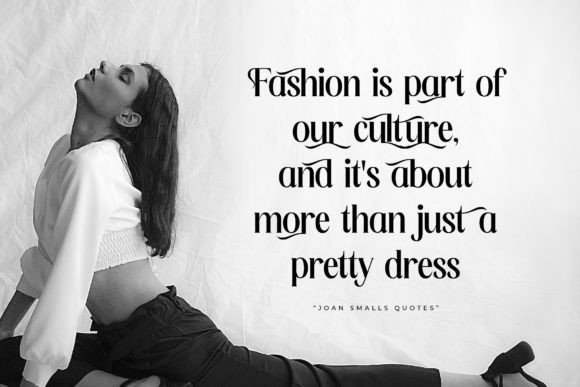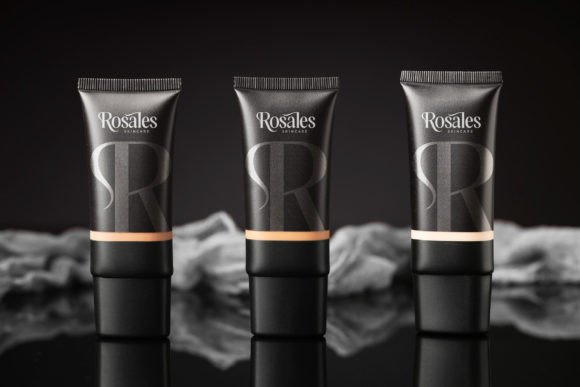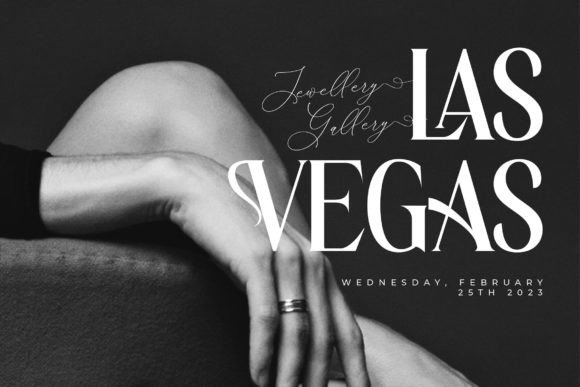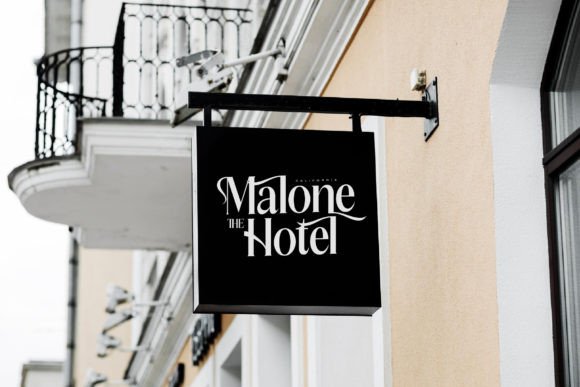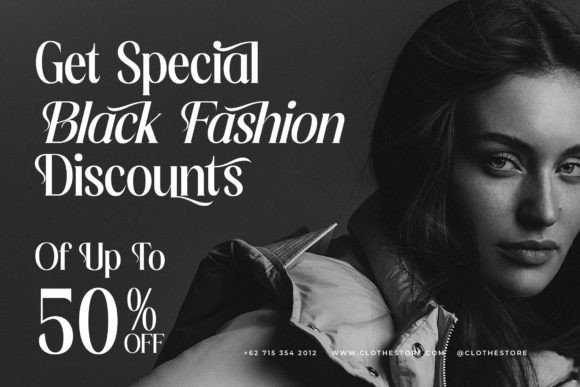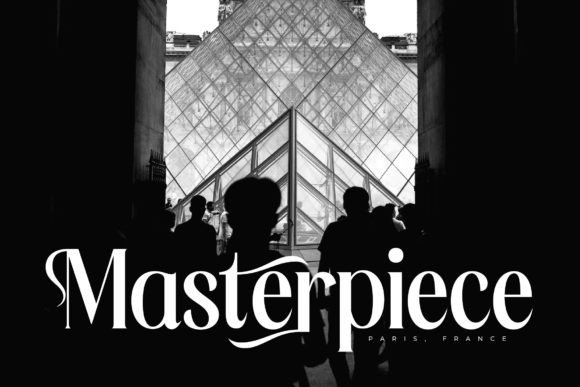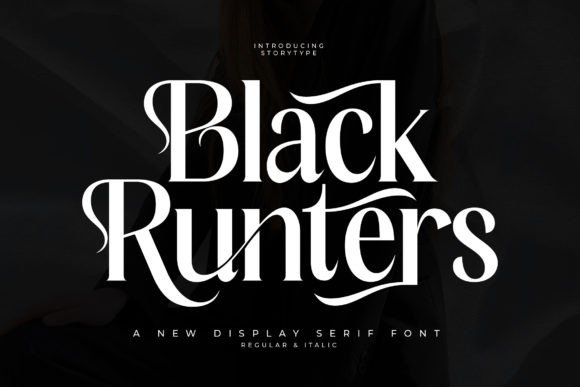
Introducing Black Runters Font: The Epitome of Modern Luxury and Elegance
In the world of typography, few fonts have managed to capture the essence of modern luxury and elegance as perfectly as Black Runters. This exquisite serif font is a true masterpiece, designed to elevate your designs to new heights of sophistication and refinement. With its intricate details, clean lines, and subtle curves, Black Runters is the perfect choice for high-end branding, editorial design, and any project that demands a touch of luxury.
A Masterclass in Typography
Black Runters boasts a unique blend of classic and modern elements, making it a standout in the world of typography. Its serif design adds a touch of tradition and heritage, while its clean lines and minimalist aesthetic ensure that it remains firmly rooted in the modern era. The font’s intricate details, including subtle curves and serifs, add a level of depth and personality that is hard to find in more straightforward typefaces.
One of the key features that sets Black Runters apart from other fonts is its PUA (Private Use Area) encoding. This means that you can access all of the font’s delightful glyphs and swashes with ease, giving you unparalleled creative freedom. Whether you’re looking to add a touch of elegance to a logo, create a sophisticated editorial design, or simply want to add some personality to your typography, Black Runters’ PUA encoding makes it easy to do so.
Perfect for High-End Branding and Editorial Design
Black Runters is specifically designed with high-end branding and editorial design in mind. Its luxurious aesthetic and sophisticated feel make it the perfect choice for:
- Luxury brands looking to create a high-end visual identity
- Editorial designers seeking to add a touch of elegance to their typography
- Magazines and publications that demand a sophisticated aesthetic
- Websites and blogs looking to elevate their typography to the next level
Why Choose Black Runters?
So why should you choose Black Runters for your next design project? Here are just a few reasons:
- Unique and sophisticated aesthetic: Black Runters boasts a truly unique and sophisticated aesthetic that will elevate your designs to new heights.
- Unparalleled creative freedom: With PUA encoding, you can access all of the font’s glyphs and swashes with ease, giving you complete creative control.
- High-end branding and editorial design: Black Runters is specifically designed with high-end branding and editorial design in mind, making it the perfect choice for luxury brands and editorial designers.
- Exceptional quality: Black Runters is crafted to exceptionally high standards, ensuring that it will deliver outstanding results in any design project.
In conclusion, Black Runters is a truly exceptional font that embodies the very essence of modern luxury and elegance. With its intricate details, clean lines, and subtle curves, this exquisite serif font is the perfect choice for high-end branding, editorial design, and any project that demands a touch of sophistication. Its PUA encoding ensures that you can access all of the font’s delightful glyphs and swashes with ease, giving you unparalleled creative freedom. So why settle for an ordinary font when you can have a truly exceptional one? Choose Black Runters for your next design project and experience the power of luxury typography for yourself.